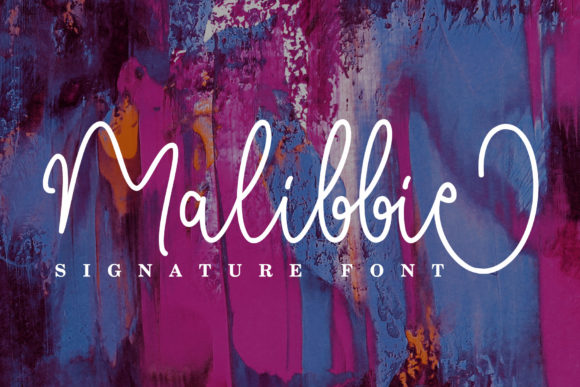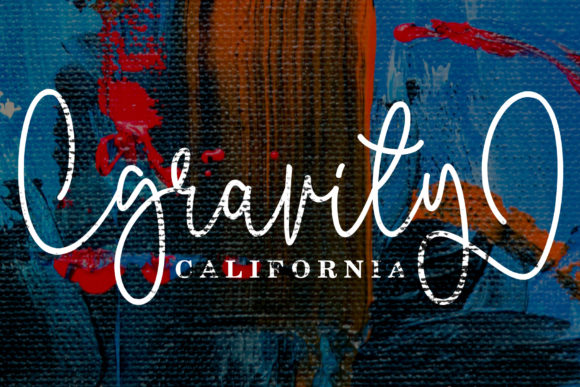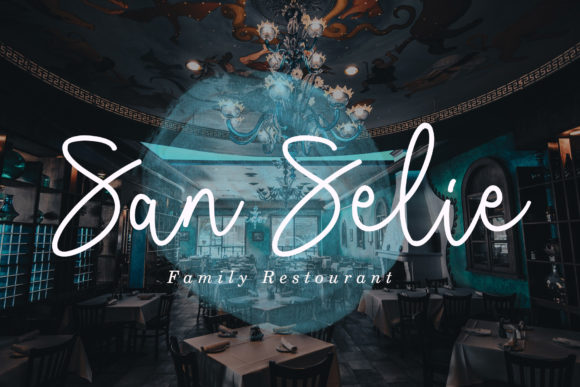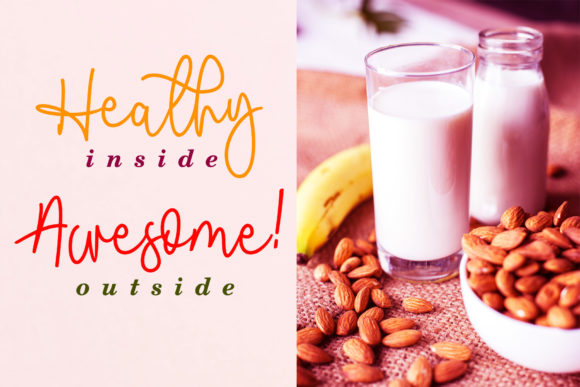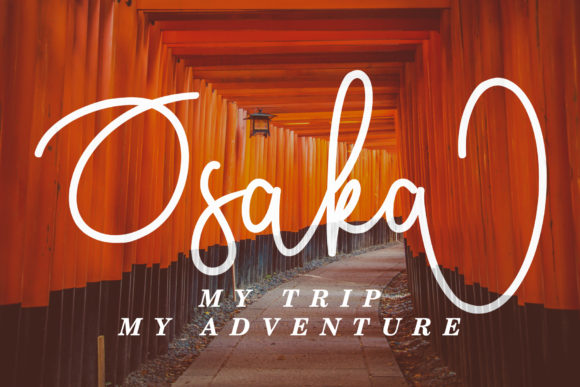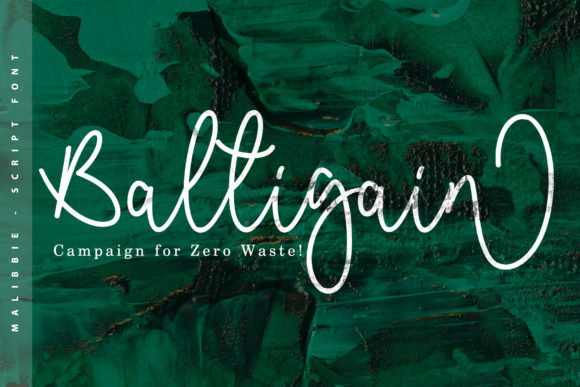
Malibbie Font
About Malibbie Font
Malibbie is a sweet and fun handwritten font with a unique charm. Fall in love with its bold style, and turn any design project into an original piece of art.